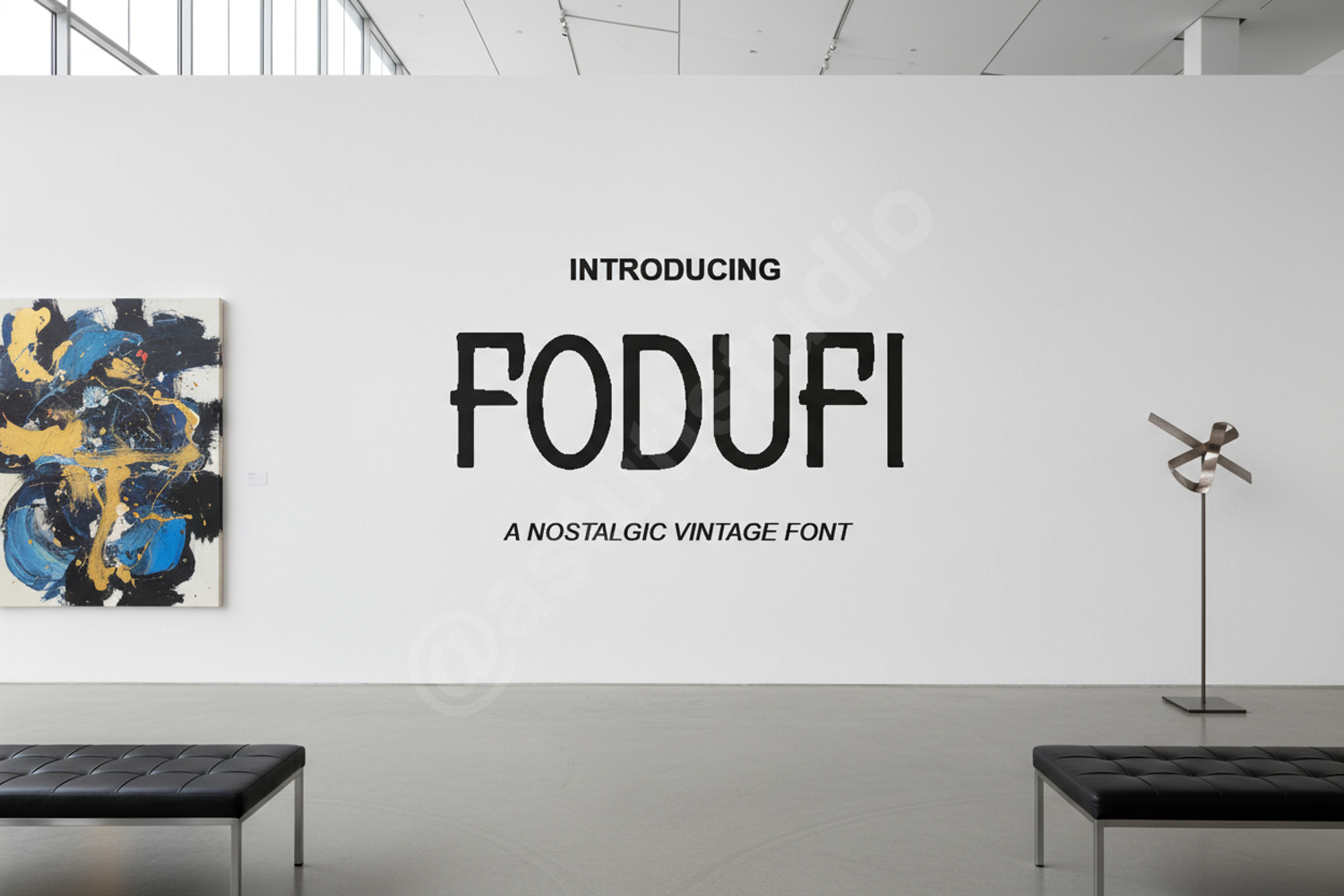
Fodufi - Modern Sophisticated Serif
Fodufi
Fodufi is a premium serif font that seamlessly blends timeless elegance with modern sophistication. Designed with clean lines and subtle curves, this typeface offers a professional aesthetic that elevates any creative project. Whether you are working on a high-end luxury brand or a minimalist editorial layout, Fodufi provides the perfect balance of readability and refined style.
- Branding and Visual Identity: Create memorable logos and brand marks that command attention.
- Editorial Design: Perfect for magazine headers, book covers, and structured layouts.
- Wedding Invitations: Add a touch of class to stationery and event materials.
- Social Media Graphics: Enhance your digital presence with high-impact typography.
- Advertising: Deliver clear and professional messages across both print and digital media.